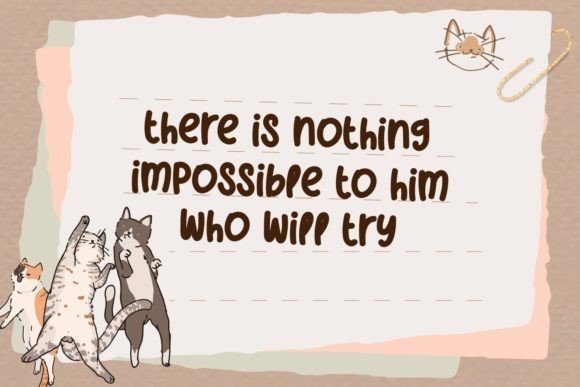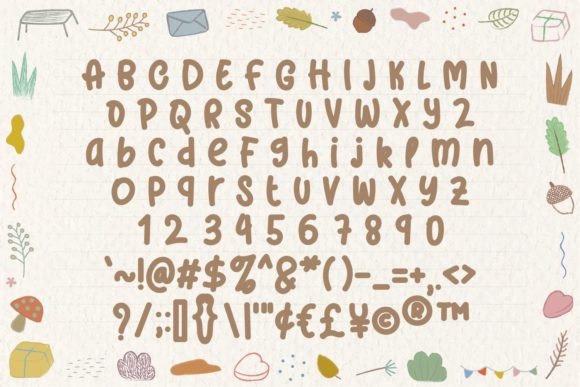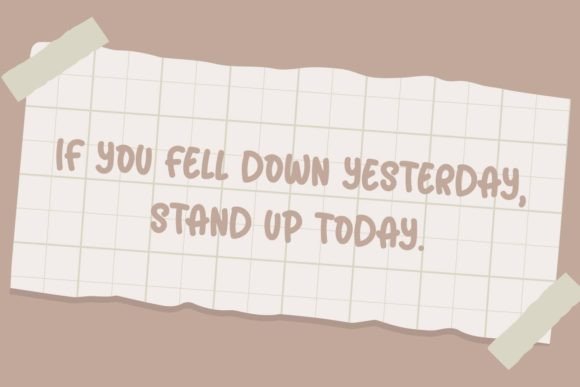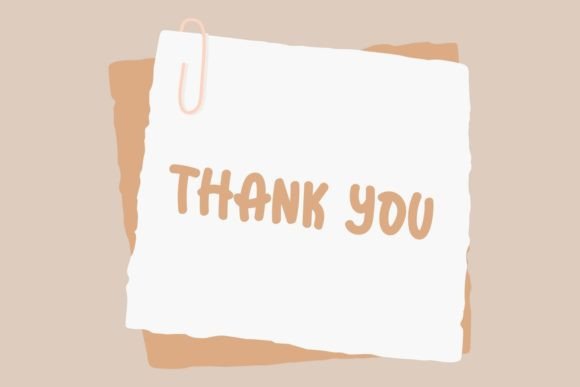
Handmade Note Font – Free Download
Introduction to Handmade Note Font
Handmade Note is unique handwritten and display font.
Key Features of Handmade Note Font